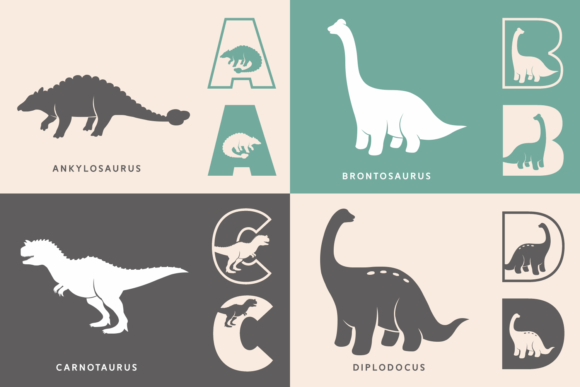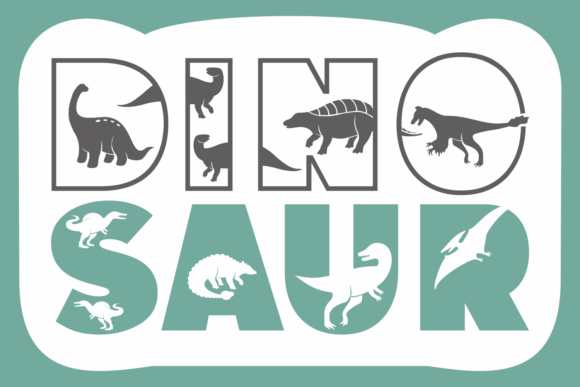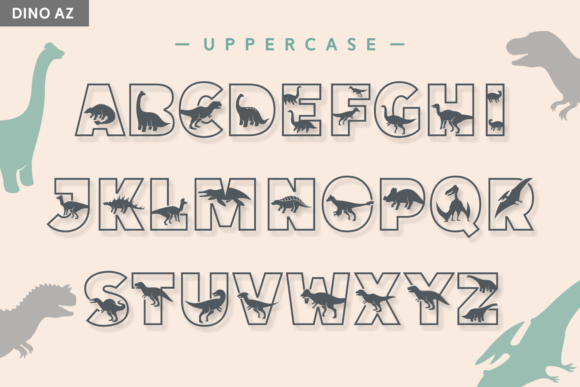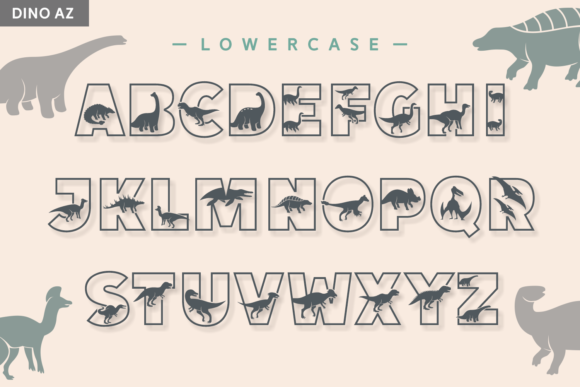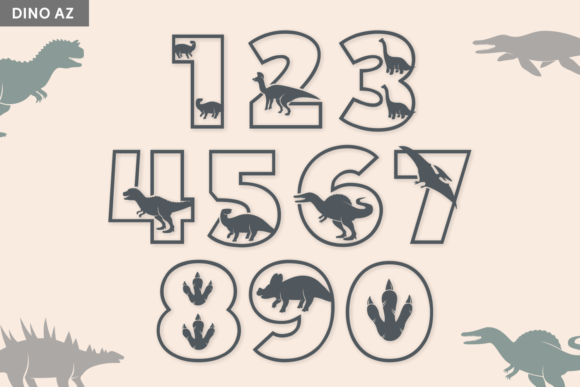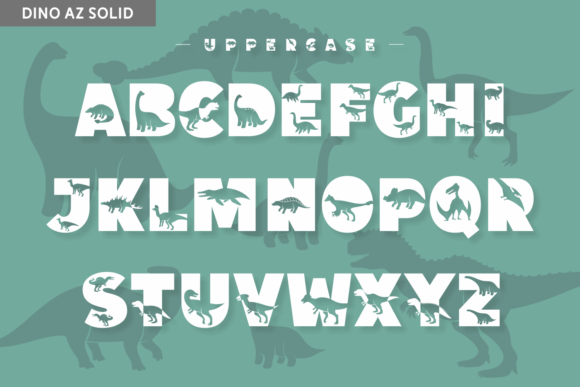
Dino Az Font: Unleash Your Creativity with a Roar!
Are you a designer, crafter, or DIY enthusiast looking for a font that adds a touch of playfulness and authenticity to your projects? Look no further than the Dino Az Font! This cool, uniquely shaped decorative font is perfect for any children activity or school project that needs a fun and creative twist.
What Makes Dino Az Font So Special?
The Dino Az Font is not just any ordinary font. Its distinctive design embodies playfulness and authenticity, making it an ideal choice for projects that require a bit of whimsy. Whether you’re creating a children’s book, a craft tutorial, or a school project, this font is sure to capture the imagination of your audience.
One of the standout features of the Dino Az Font is its PUA (Private Use Area) encoding. This means that you can access all of the glyphs and swashes with ease, giving you complete creative control over your project. With PUA encoding, you can effortlessly insert special characters, ligatures, and other unique elements that will make your project truly stand out.
As a designer or crafter, you know how important it is to have a font that can help you create visually appealing and engaging projects. The Dino Az Font is designed to help you do just that. Its playful and authentic design makes it perfect for a wide range of projects, from:
- Children’s books and activity sheets
- School projects and presentations
- Craft tutorials and patterns
- DIY projects and signage
Whether you’re creating digital or print materials, the Dino Az Font is sure to add a fun and creative touch to your project.
Key Features of Dino Az Font
So, what are the key features of the Dino Az Font that make it so special? Here are just a few:
- Unique Design: The Dino Az Font has a distinctive design that embodies playfulness and authenticity.
- PUA Encoding: The font is PUA encoded, making it easy to access all glyphs and swashes.
- Playful and Authentic: The font is perfect for projects that require a fun and creative twist.
- Multipurpose: The font can be used for a wide range of projects, from children’s books to DIY tutorials.
Tips for Using Dino Az Font
Here are a few tips for using the Dino Az Font in your projects:
- Experiment with Different Sizes: Try out different font sizes to see how the Dino Az Font looks in different contexts.
- Combine with Other Fonts: Combine the Dino Az Font with other fonts to create a unique and visually appealing design.
- Use for Headings and Titles: Use the Dino Az Font for headings and titles to add a touch of playfulness and creativity to your project.
In conclusion, the Dino Az Font is a cool, uniquely shaped decorative font that’s perfect for designers, crafters, and DIY enthusiasts. Its playful and authentic design, combined with PUA encoding, make it an ideal choice for any project that requires a fun and creative twist. So why not give it a try and see how it can help you unleash your creativity and add a roar to your projects!